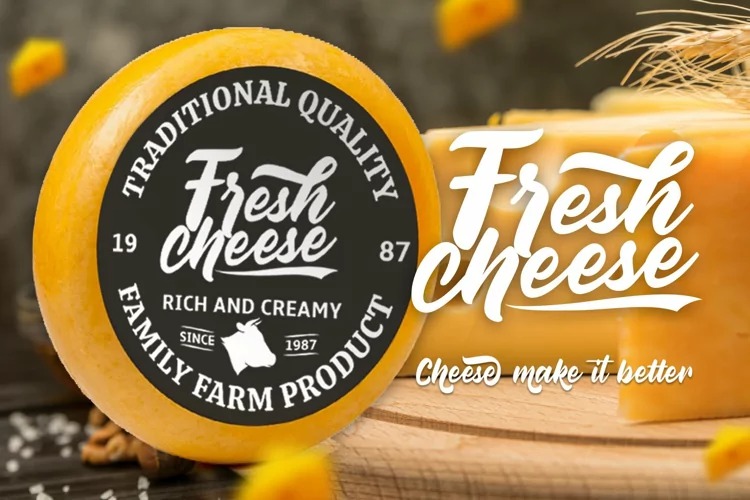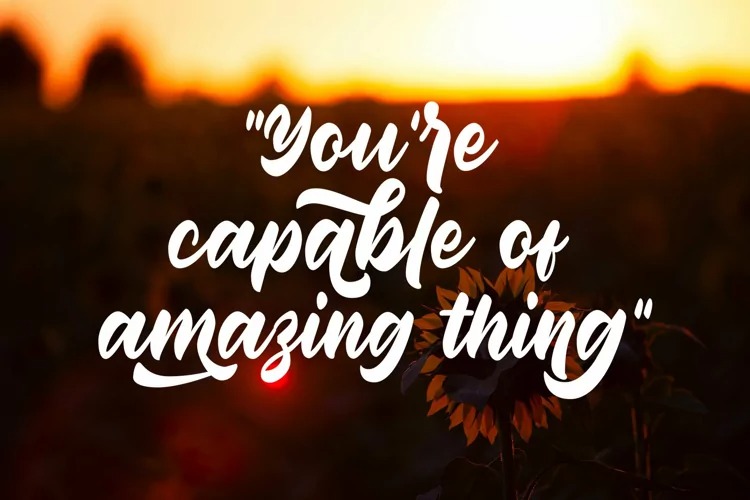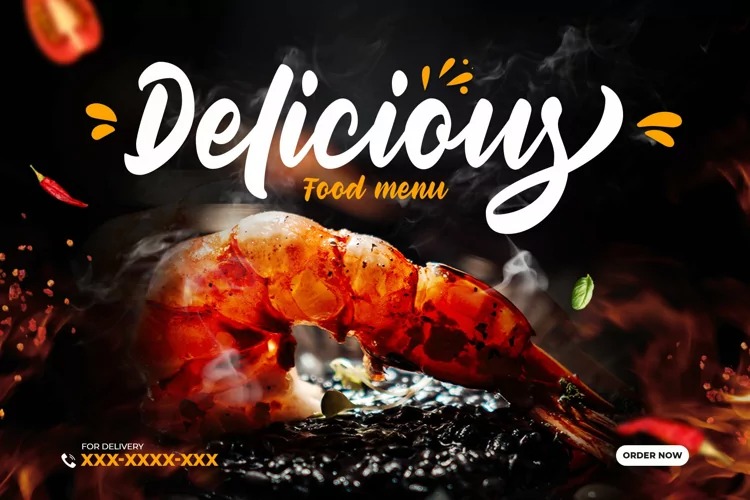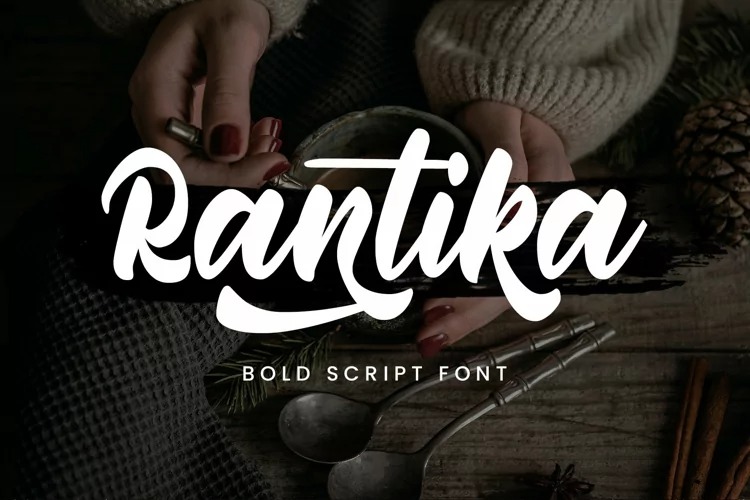
Rantika Font
Rantika Script Font
This is a stunning modern style script font created by Arterfak Project with authentic and casual feels. This font comes from the manual brush stroke which has an informal stroke thickness that makes the font looks more natural.
Bring the happiness with Rantika, make your design more cheerful because you can use this font for cards, apparel, merchandise, invitation, food or menu design, poster, cute quote, holiday design, and many more!